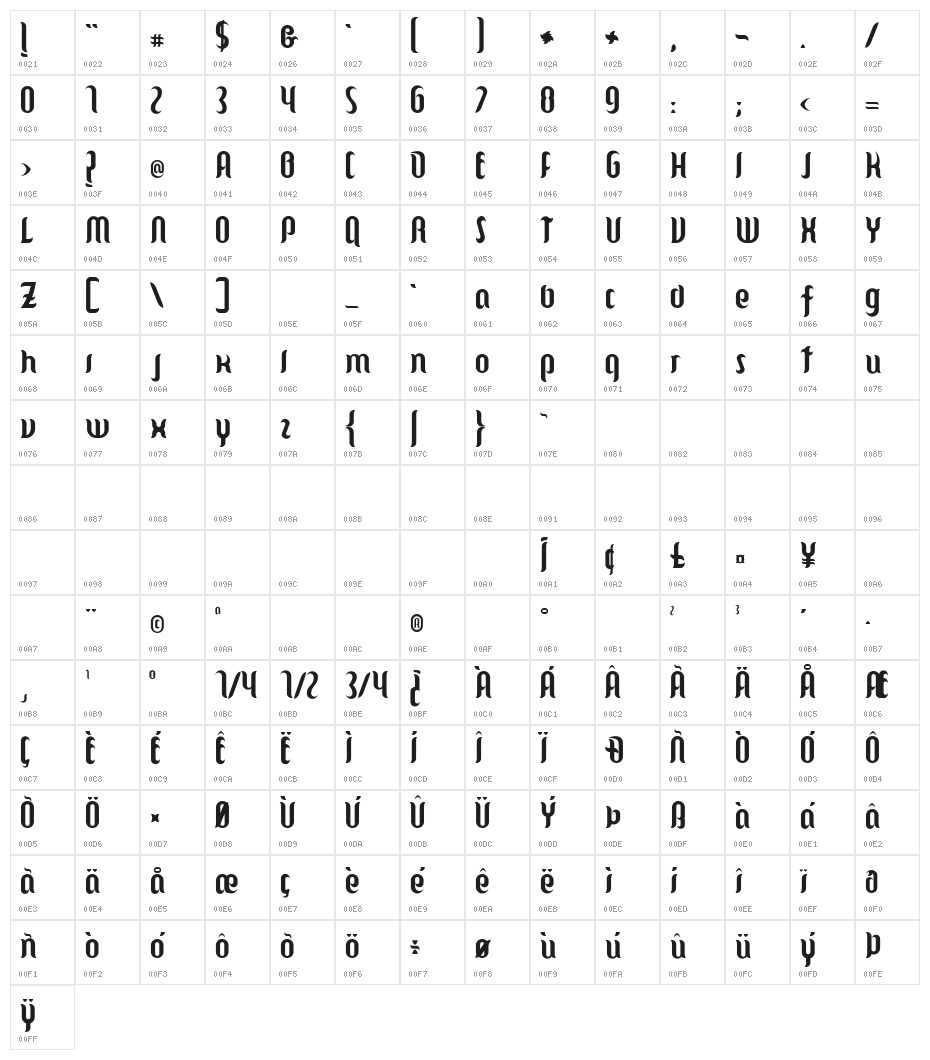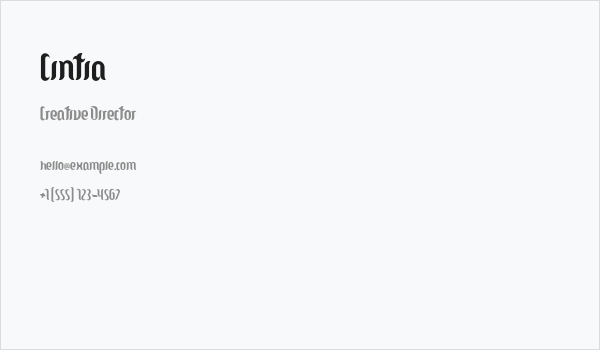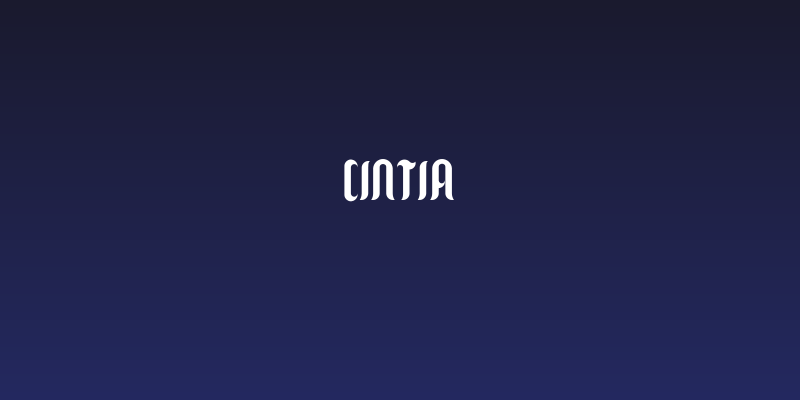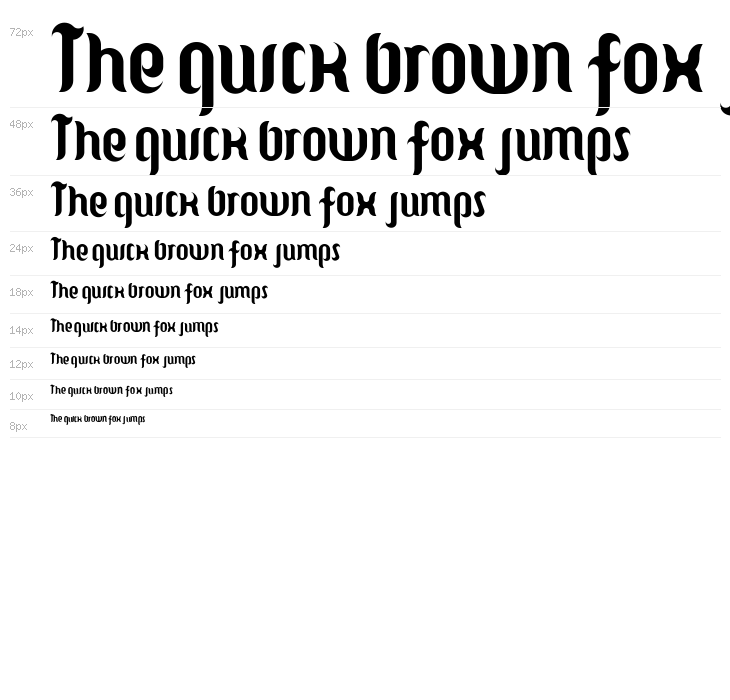
Cintia Font
This font features a bold and striking design with a unique blend of modern and vintage elements. The characters are tall and narrow, with a distinct curvature that gives them a flowing, almost script-like appearance. The uppercase and lowercase letters maintain a consistent style, with smooth transitions and rounded edges that add to the overall elegance. The numbers and special characters follow the same design principles, ensuring a cohesive look across all elements. The font's high contrast in stroke thickness enhances its readability while maintaining a decorative flair.
| Proposed Projects | Ideal for branding projects, logo design, poster headlines, and any creative work that requires a bold statement. |